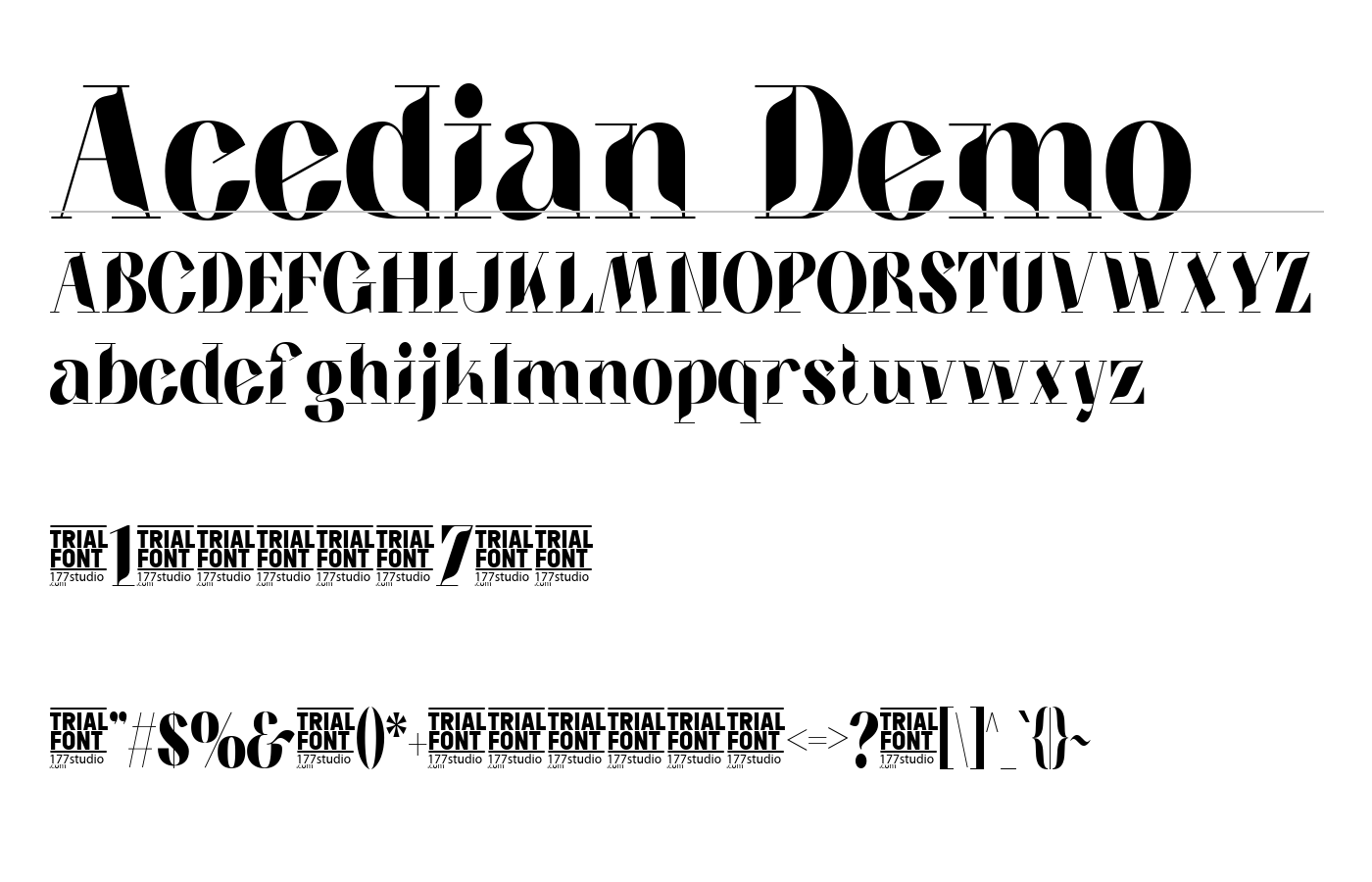
Acedian Demo is a striking serif font that blends high contrast with a modern Didone style, featuring dramatic thick and thin strokes and sharp, unbracketed serifs. Its unique letterforms, including stylized terminals and a mix of single and double-story characters, give it a bold, elegant personality well suited for attention-grabbing headlines, luxury branding, and editorial design where sophistication and flair are desired. This font stands out with its tall, narrow proportions and artistic details, making it ideal for projects that want to convey a sense of refined creativity and contemporary elegance.
Acedian Demo Font
About Acedian Demo Font
| Font family | Acedian Demo Font |
| Designer | 177Studio.com |